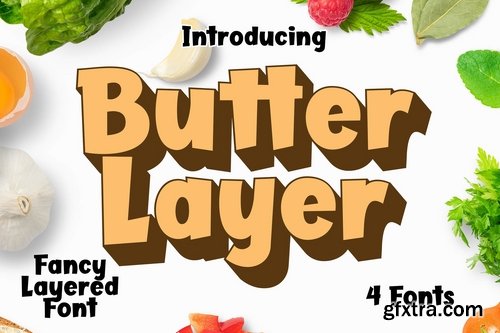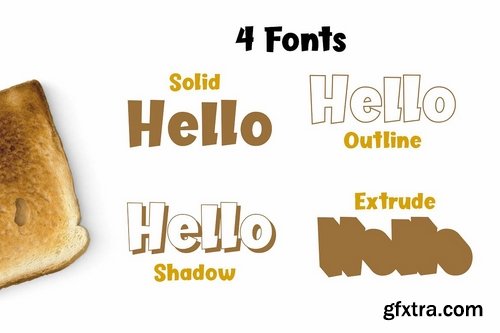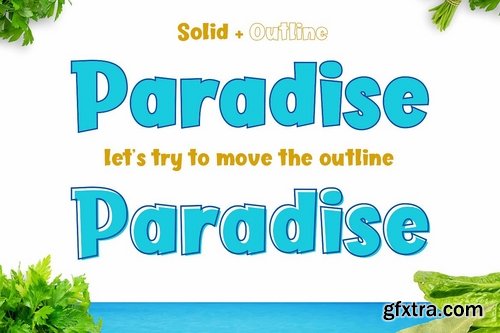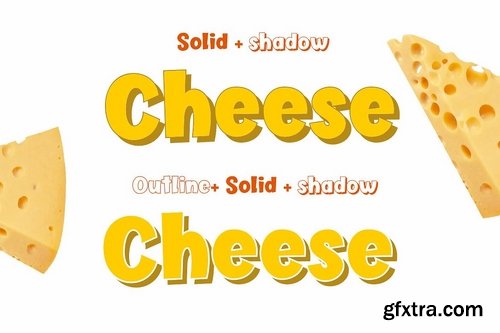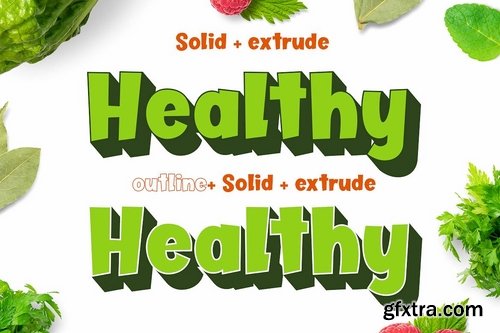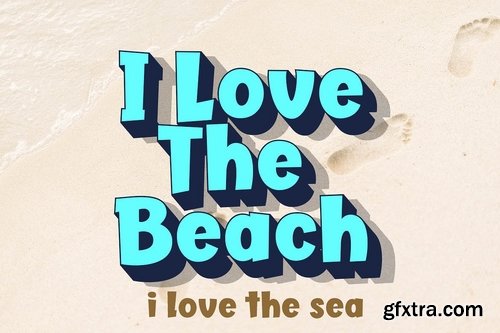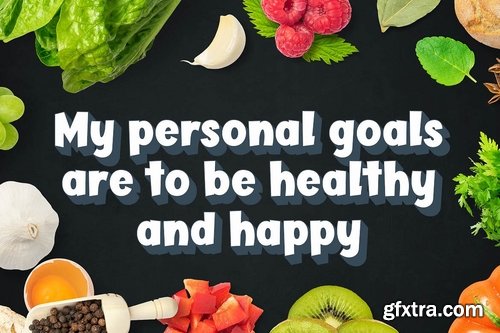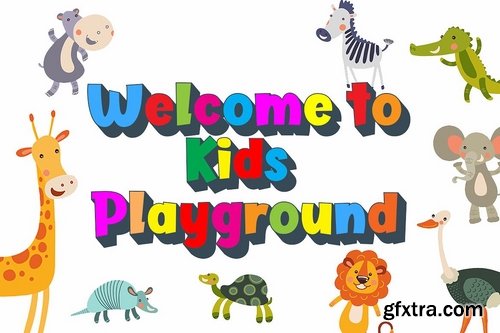
We have a new font for you called Butter Layer. This is a layered font, a fancy font, a fun font that very very useful for many your design projects. You can use it for logo, poster, menu, clothing, education project, and others.